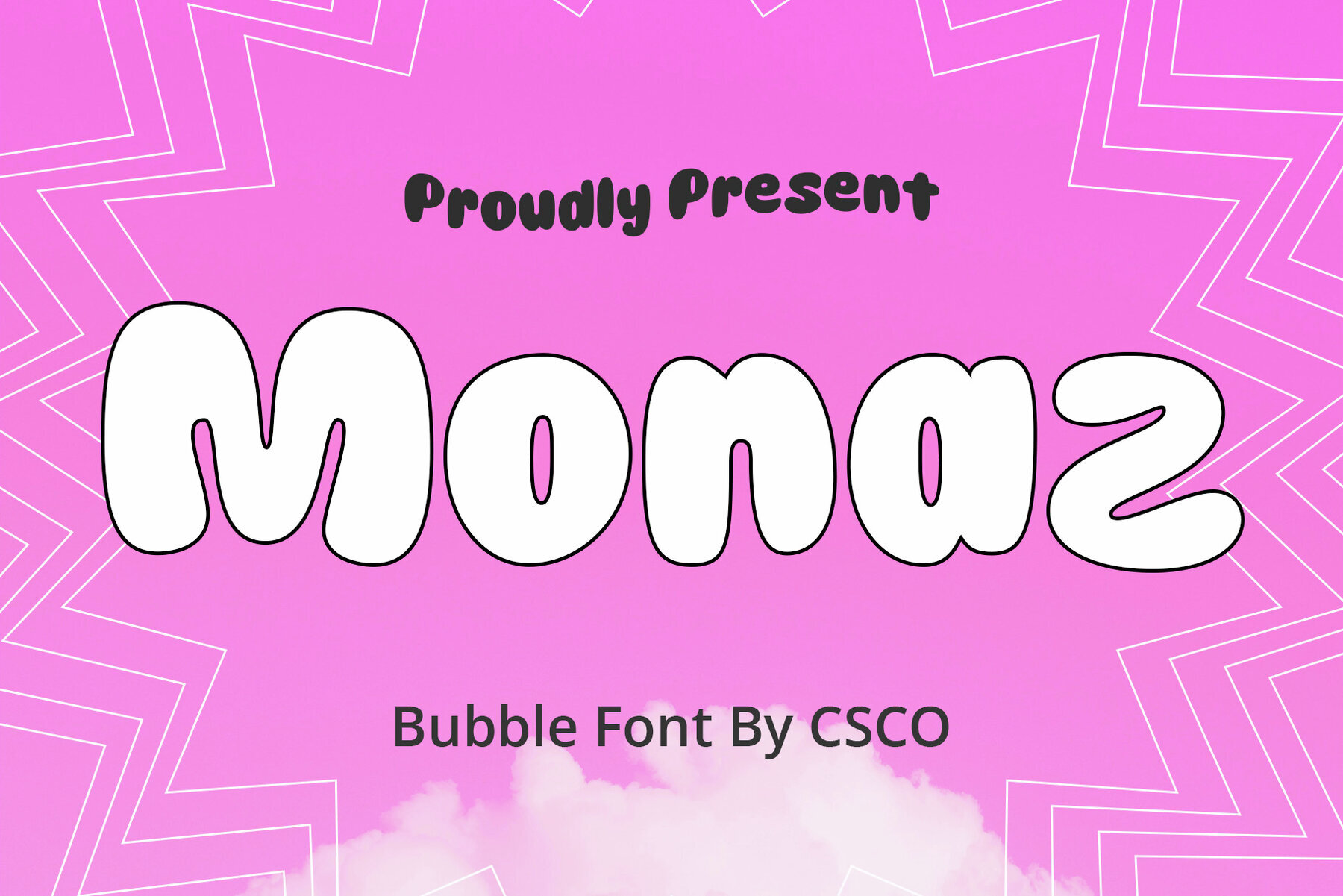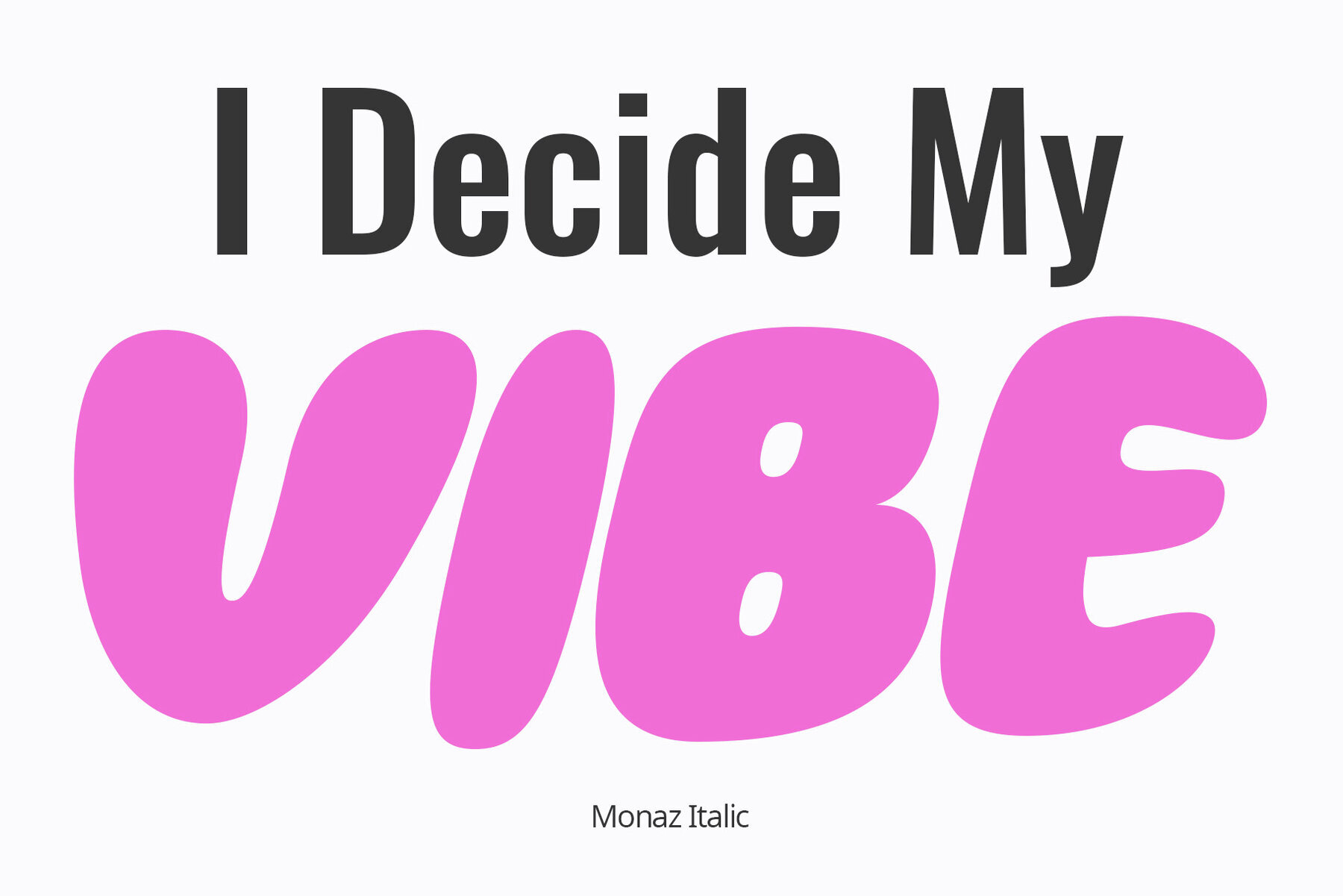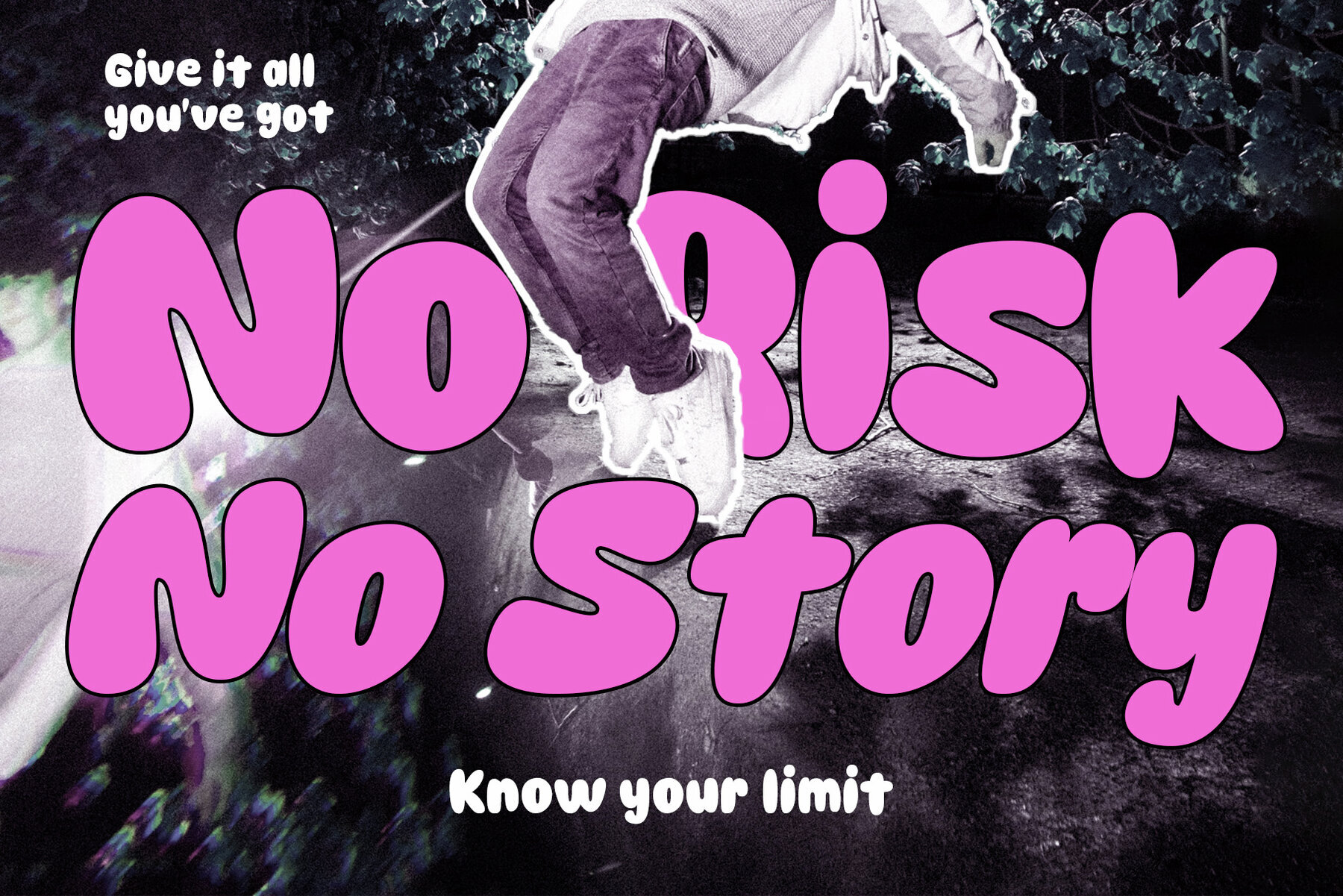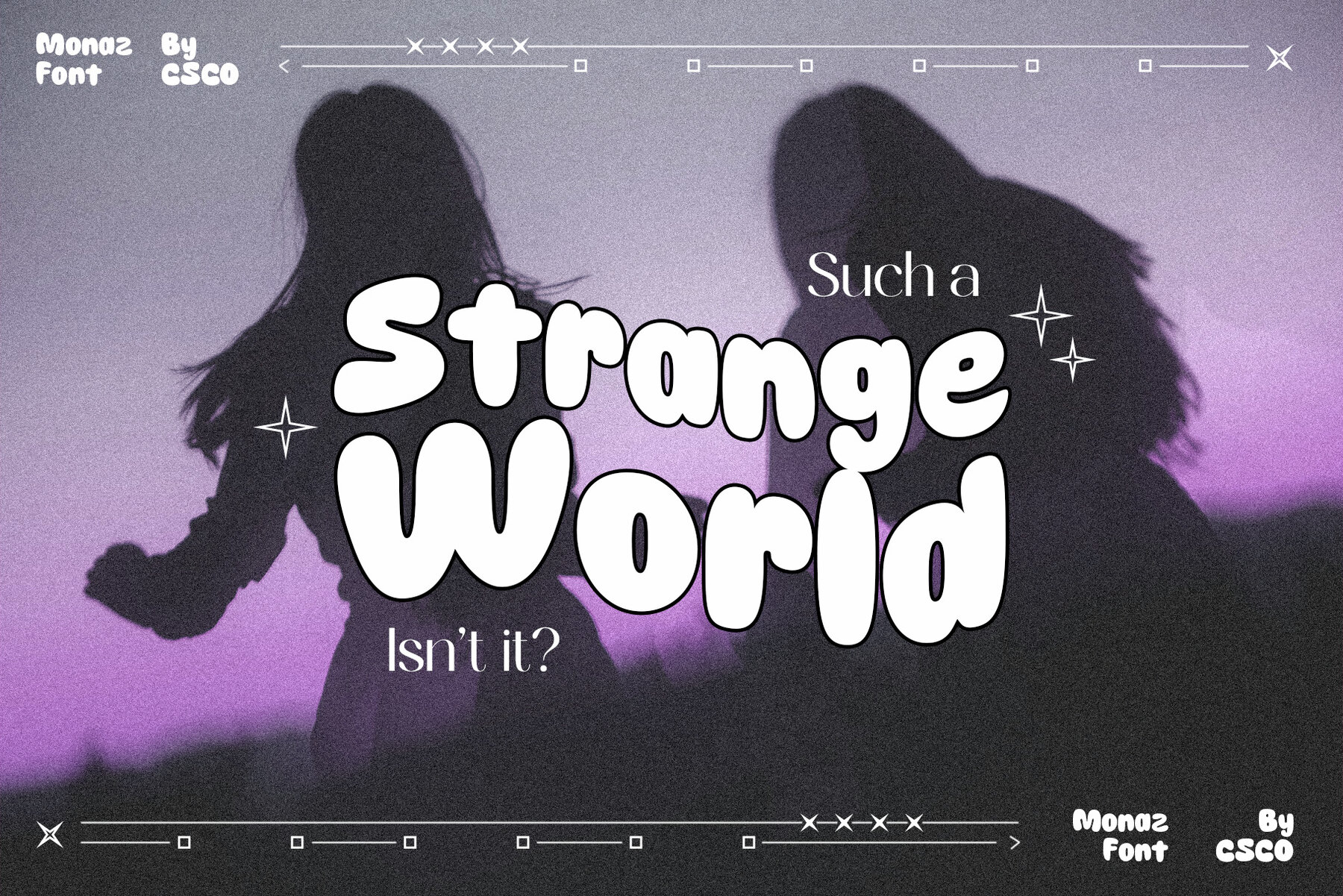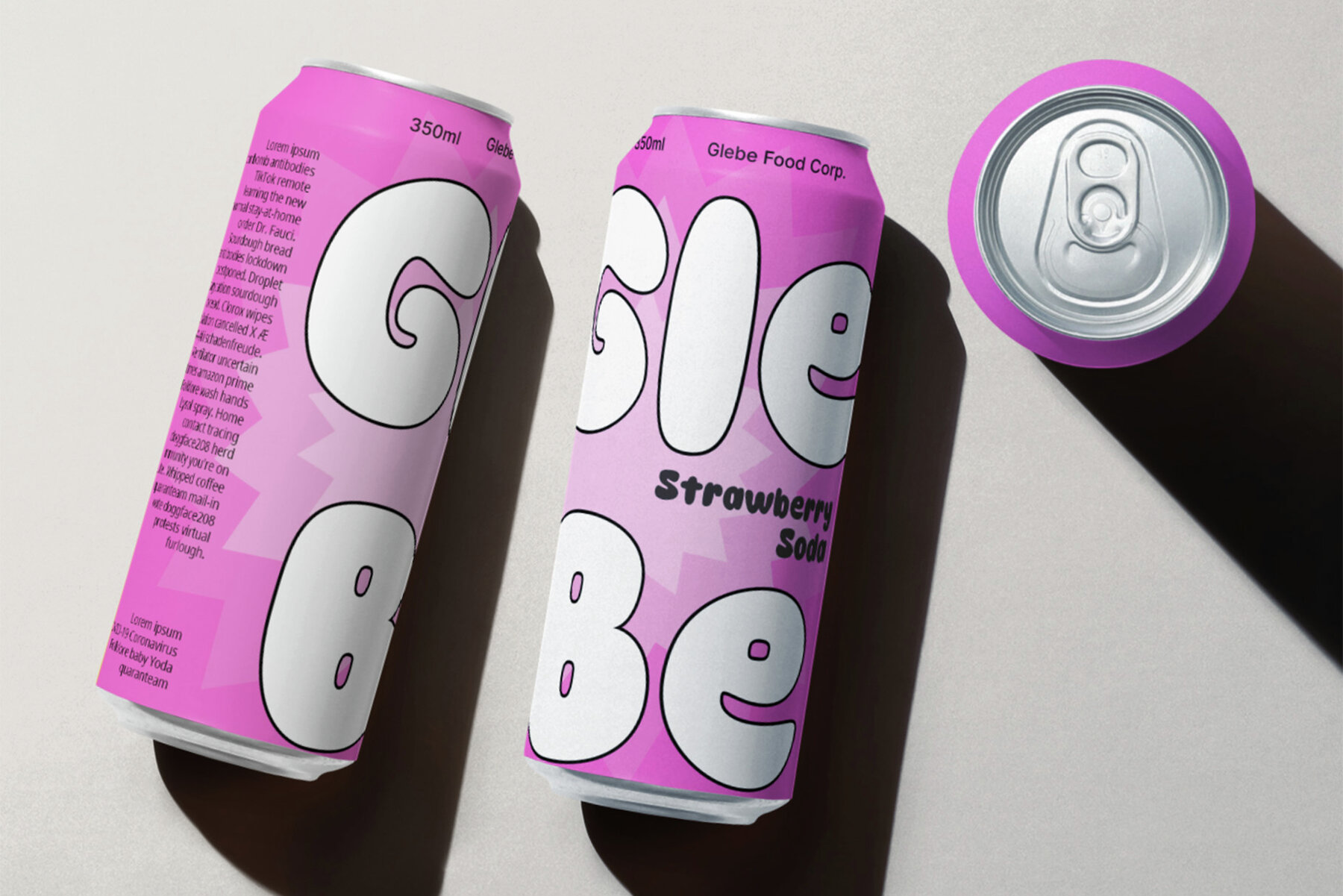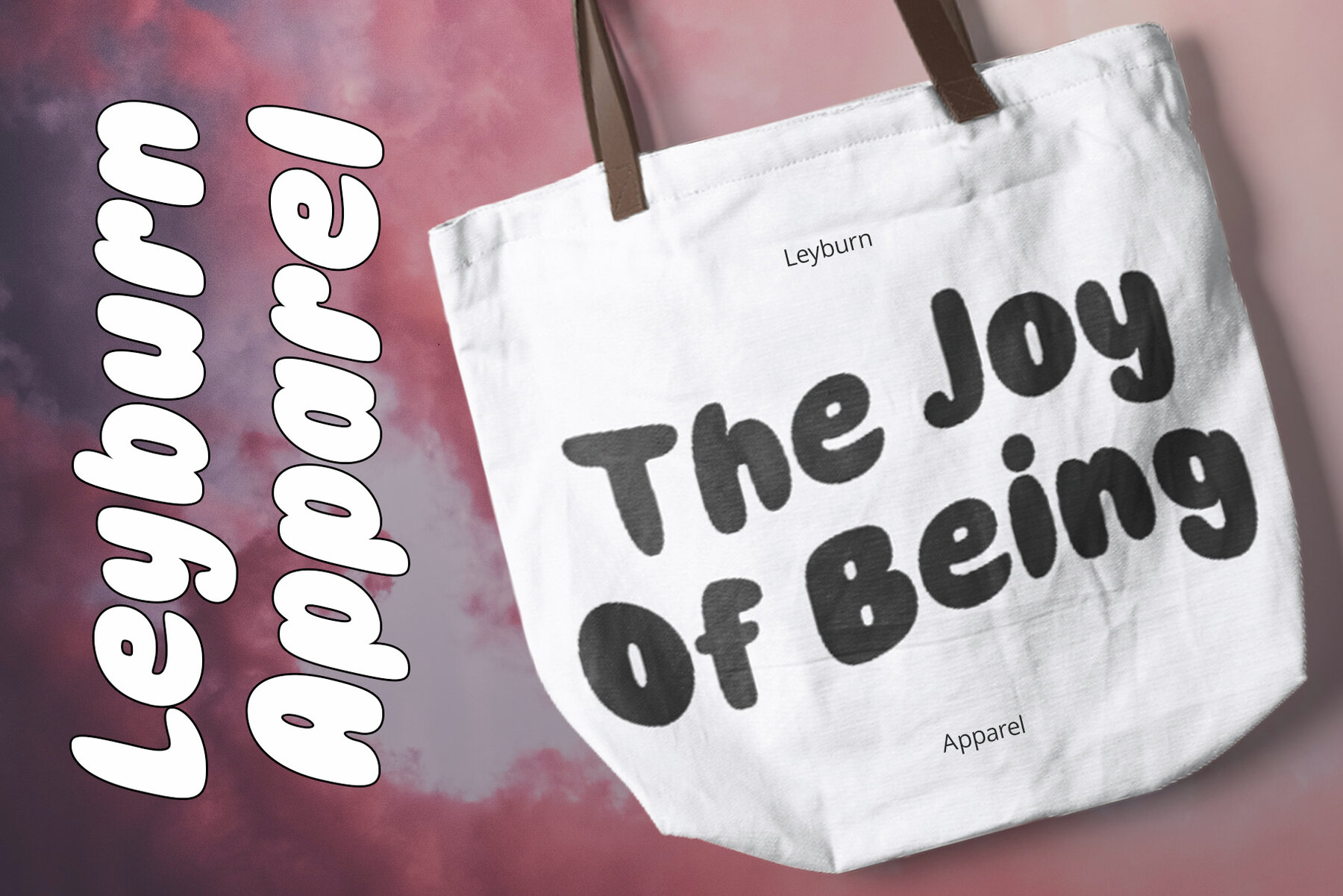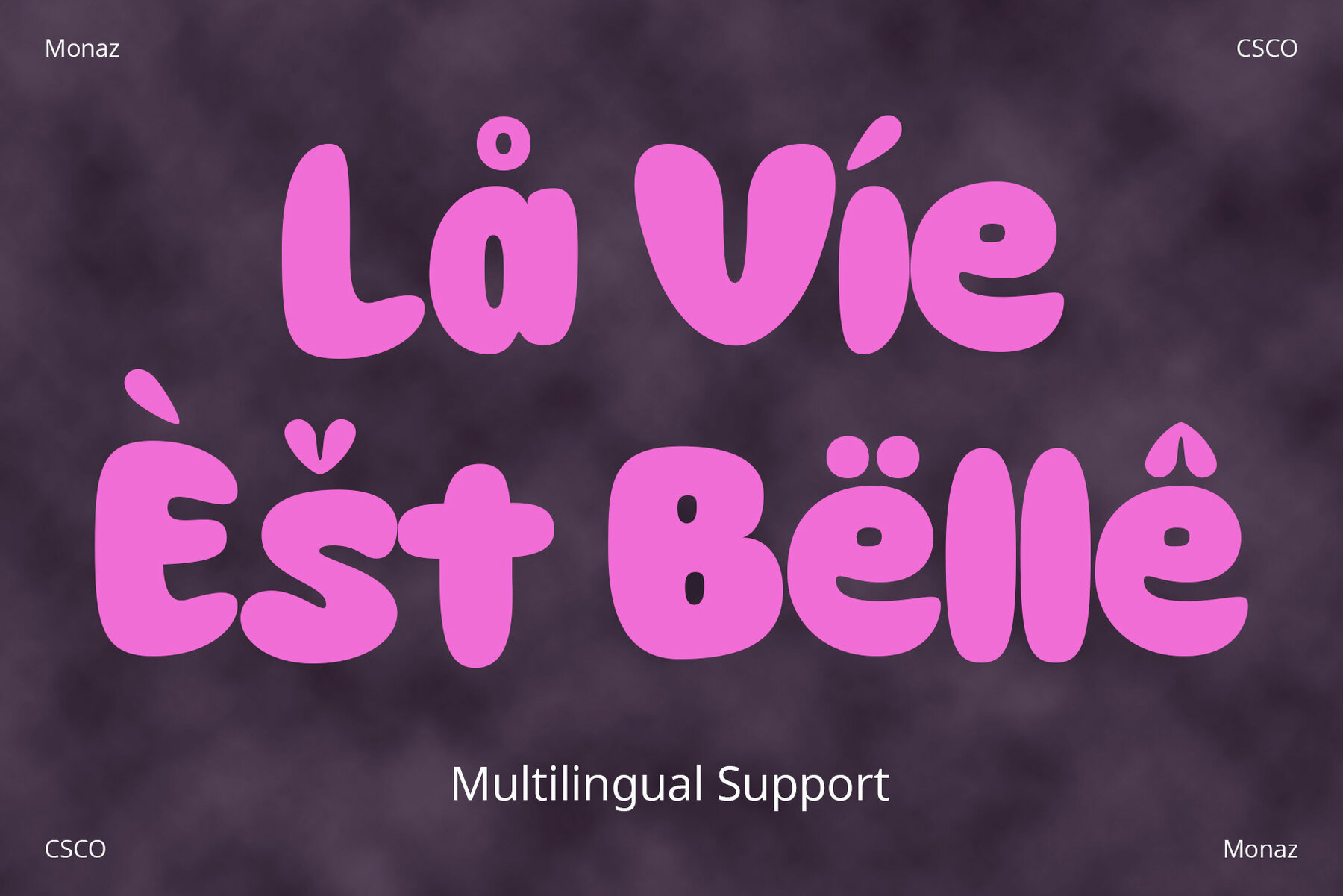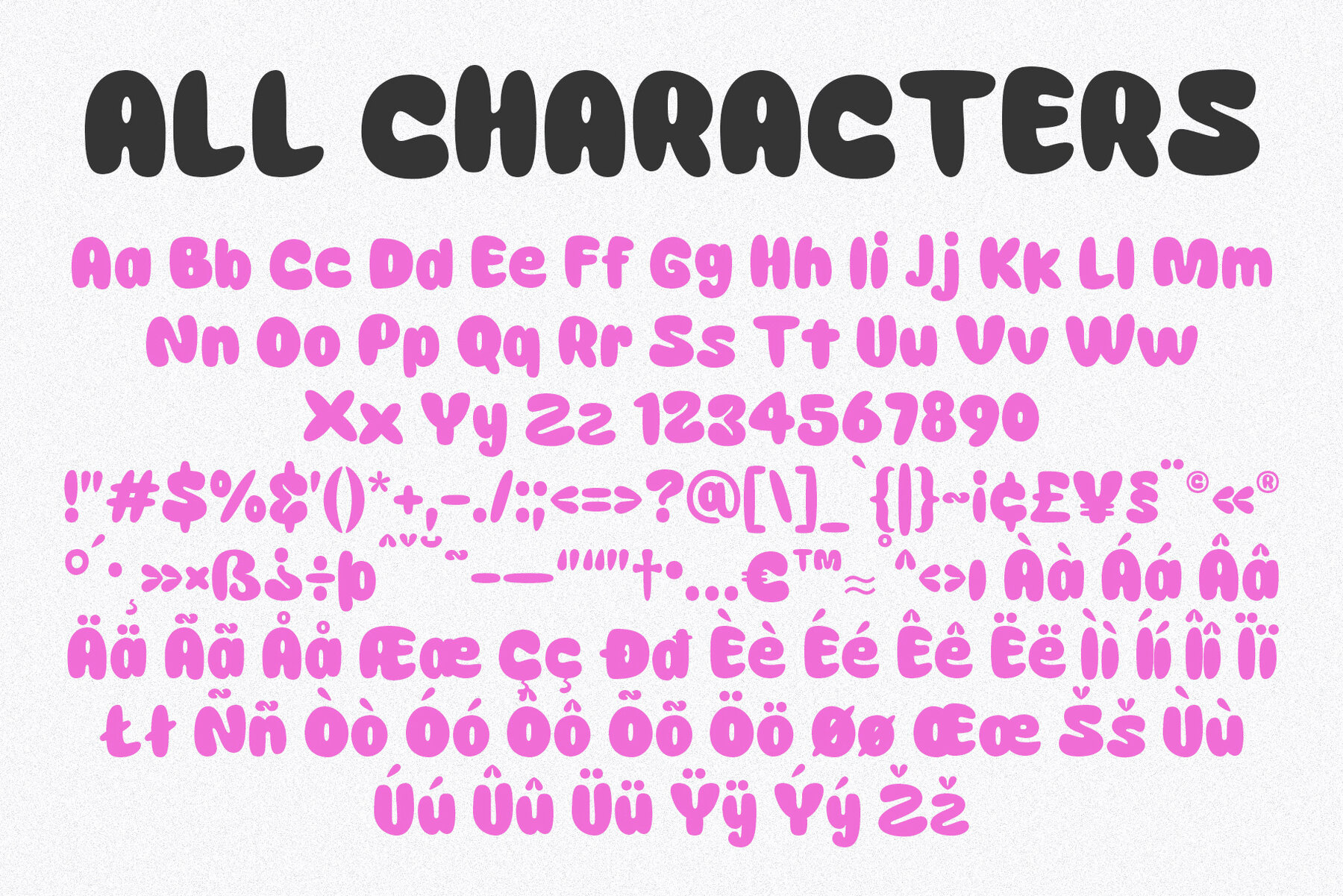
Monaz Font
Monaz is a playful and airy display font inspired by the lightness and roundness of bubbles and balloons. Ideal for creating eye-catching headings, logos, and children's books, this font not only grabs attention but also serves as a perfect choice for fun and whimsical projects. Monaz features characters that resemble bubbles with rounded edges and a bouncy feel. The letters mimic the floating appearance of balloons, adding a cheerful and lighthearted touch to any design. Its rounded forms ensure readability while preserving its playful charm. Monaz offers high versatility, fitting a variety of design needs effortlessly. It shines in party invitations, product packaging, and promotional materials. Additionally, it is effective in educational materials for children, making learning engaging with its friendly appearance. Its readability and unique style make it an ideal choice for designers seeking to add a fun element to their projects. Designed for a wide audience, Monaz features a simple and clear style that is easy to read. It appeals to all ages, capturing the whimsy of childhood while still being sophisticated enough for adult projects. This font brings a unique joy and playfulness to any design, making it a valuable addition to any font collection. What you get: Features: No specialized software is needed to utilize this typeface. For any inquiries or assistance, please don't hesitate to get in touch. We appreciate your support in making your creative projects shine! Best regards, Craft Supply Co.Monaz: Playful Bubble Font
Design and Aesthetics
Versatility and Usage
Accessibility and Appeal